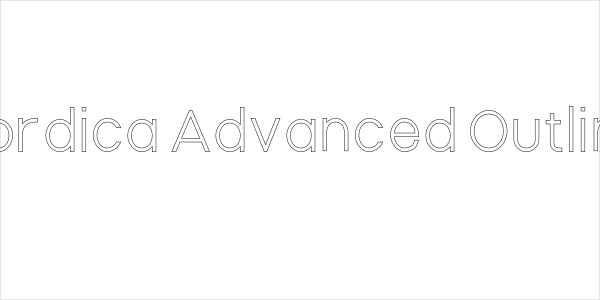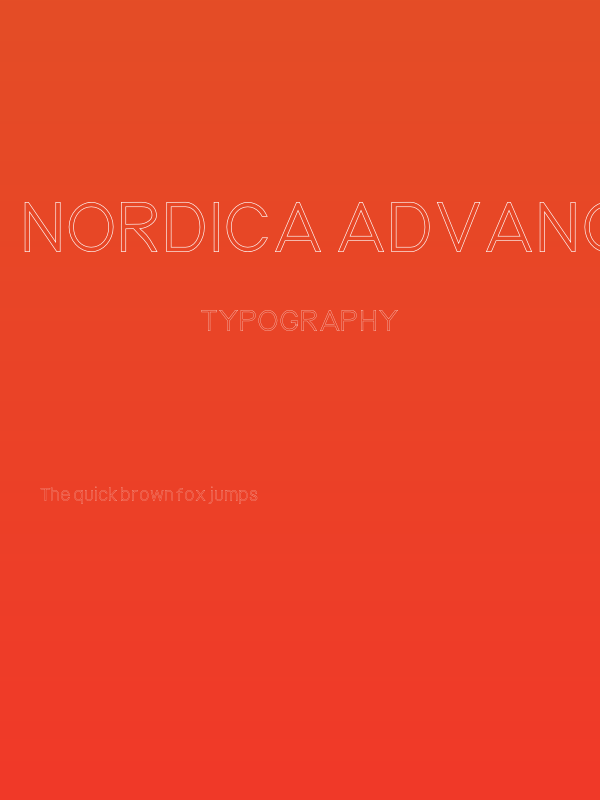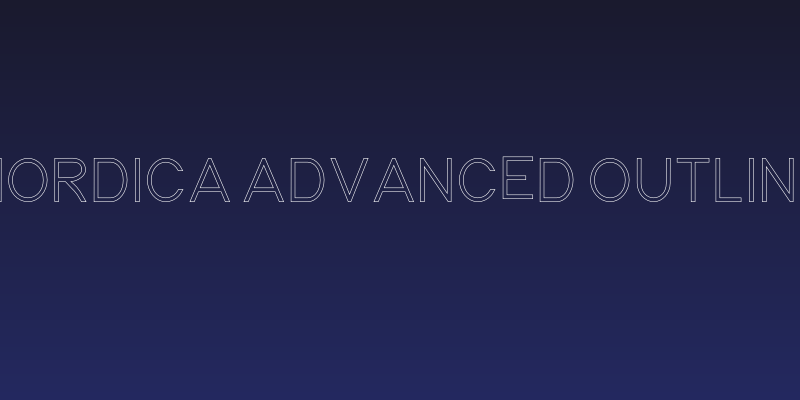
Nordica Advanced Outline Font
Nordica Advanced Outline Description
This font features a clean, geometric outline style that emphasizes simplicity and modernity. The characters are crafted with a uniform line weight, creating a consistent and harmonious appearance. The uppercase and lowercase letters maintain a balanced proportion, while the numerals and special characters are designed to complement the overall aesthetic. The font's outline design gives it a unique, airy feel, making it suitable for projects that require a contemporary and minimalist touch. Its clarity and precision make it ideal for both digital and print applications.
| Proposed Projects | Ideal for branding, logos, posters, and digital media where a modern and airy aesthetic is desired. |